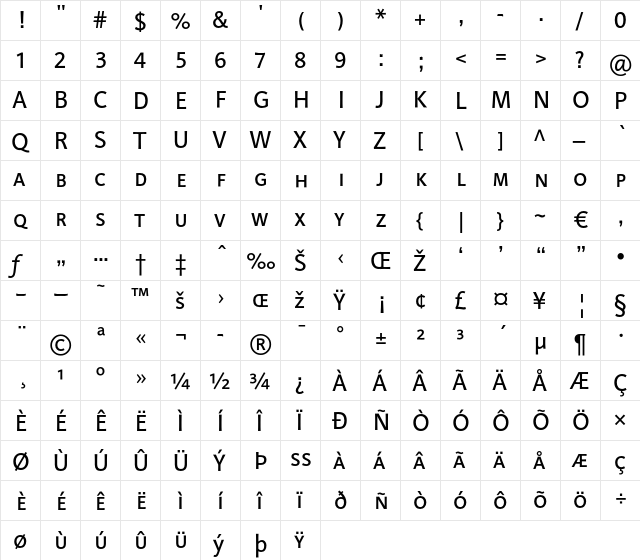
LinotypeProjekt SC Regular Font Preview
LinotypeProjekt SC Regular
Design Context for LinotypeProjekt SC Typeface
LinotypeProjekt SC offers clean, dependable letterforms without strong stylistic allegiance, making it a practical choice for designers who need flexibility.
Pro Tip: Use LinotypeProjekt SC in both headline and body roles to test its range before committing to a single application.